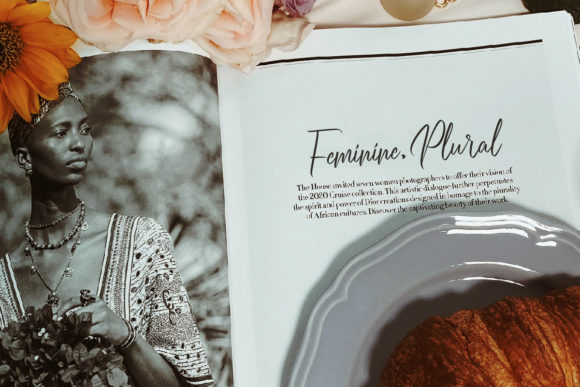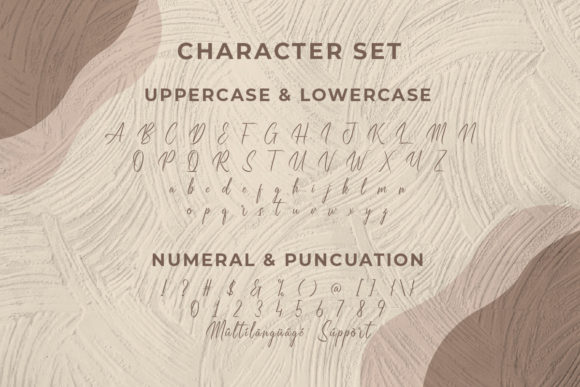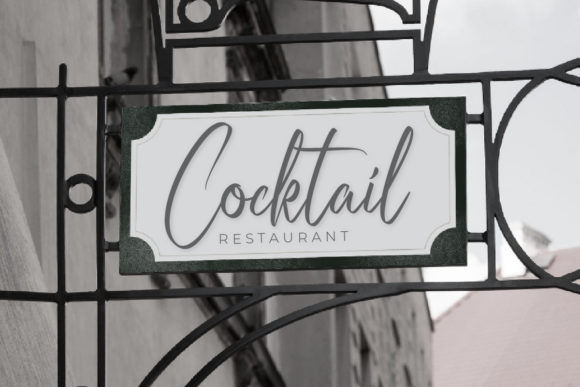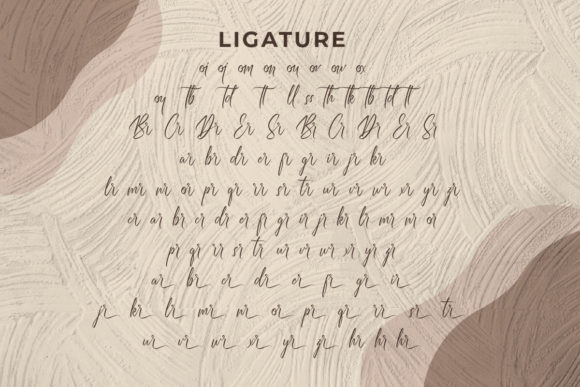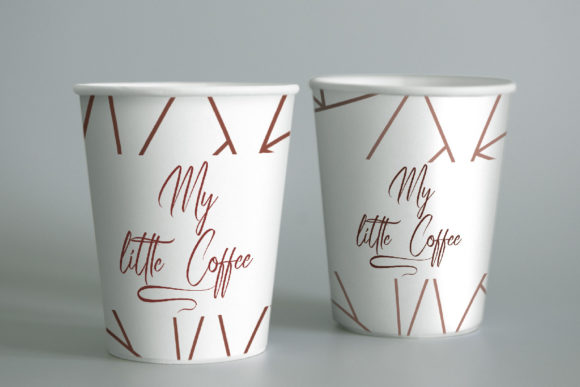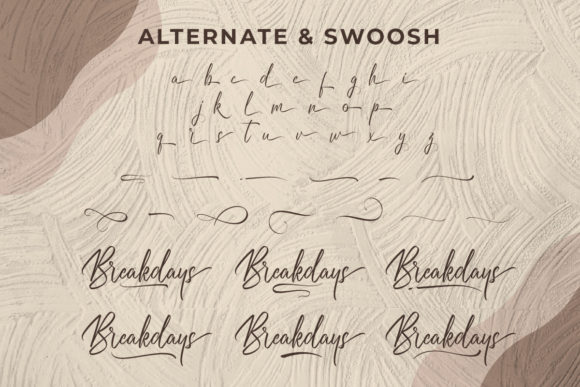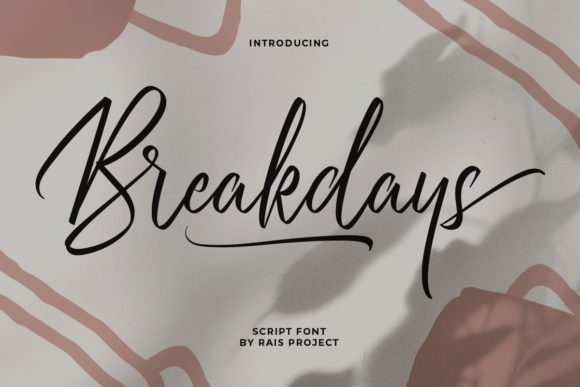
Introducing Breakdays Font: Elevate Your Designs with Elegance and Class
In the world of typography, a font can make or break the aesthetic of a design. For those seeking a touch of sophistication and refinement, Breakdays Font is an exquisite choice. This lovely and delicate script font is specifically crafted to infuse elegance and class into your creations, making it perfect for designers and crafters looking to elevate their work.
The Beauty of Breakdays Font
Breakdays Font boasts a unique, hand-crafted design that exudes a sense of luxury and poise. Its delicate strokes and intricate details make it an ideal choice for projects that demand a high level of sophistication. Whether you’re working on a branding project, wedding invitation, or packaging design, Breakdays Font is sure to impress.
One of the standout features of Breakdays Font is its PUA (Private Use Area) encoding. This means that users can easily access all the glyphs and swashes, allowing for greater flexibility and creativity in their designs. With PUA encoding, you can effortlessly navigate the font’s extensive character set, including alternates, ligatures, and ornaments, to create stunning and unique typographic compositions.
Breakdays Font’s versatility makes it suitable for a wide range of design applications. Here are a few examples:
- Branding and Logo Design: Use Breakdays Font to create a sophisticated brand identity that stands out from the competition.
- Wedding and Event Stationery: Add a touch of elegance to your wedding invitations, save-the-dates, and other event materials with this beautiful script font.
- Packaging Design: Elevate your product packaging with Breakdays Font, perfect for luxury goods, cosmetics, and high-end products.
- Digital Design: Use Breakdays Font in your digital projects, such as website headers, social media graphics, and email newsletters, to add a touch of sophistication.
Why Choose Breakdays Font?
With so many fonts available, why choose Breakdays Font? Here are a few compelling reasons:
- Unique and Elegant Design: Breakdays Font offers a distinctive and refined aesthetic that will set your designs apart.
- Easy to Use: With PUA encoding, accessing the font’s features is straightforward, making it easy to incorporate into your workflow.
- High-Quality Typography: Breakdays Font is crafted with attention to detail, ensuring a high level of typographic quality that will enhance your designs.
Tips for Using Breakdays Font
To get the most out of Breakdays Font, consider the following tips:
- Pair with Contrasting Fonts: Combine Breakdays Font with a sans-serif or serif font to create visual interest and hierarchy.
- Experiment with Swashes: Take advantage of the font’s swashes and glyphs to add flair and personality to your designs.
- Adjust Font Size and Color: Play with font sizes and colors to create a visually appealing composition that showcases the font’s beauty.
Breakdays Font is a stunning script font that offers a perfect blend of elegance and class. With its PUA encoding, delicate design, and versatility, it’s an excellent choice for designers and crafters seeking to elevate their work. Whether you’re creating branding materials, wedding stationery, or packaging designs, Breakdays Font is sure to impress. So why wait? Discover the beauty of Breakdays Font and take your designs to the next level.